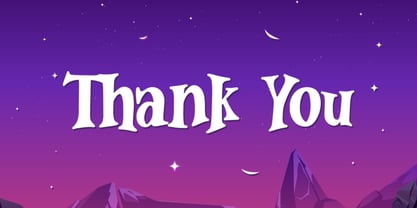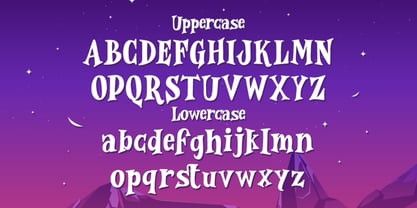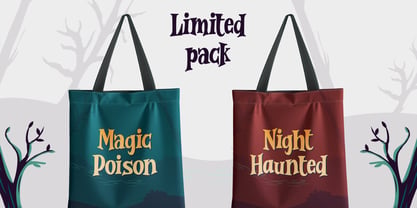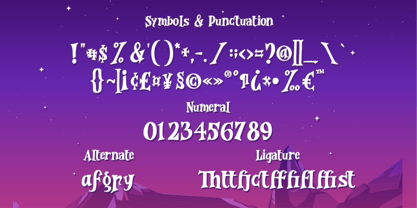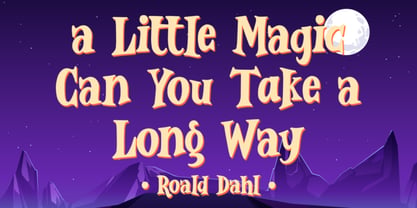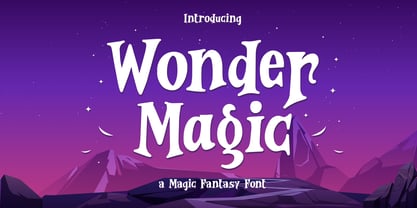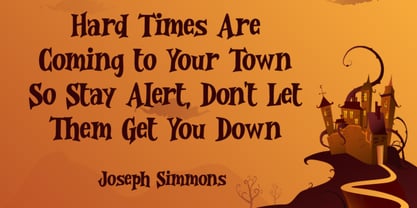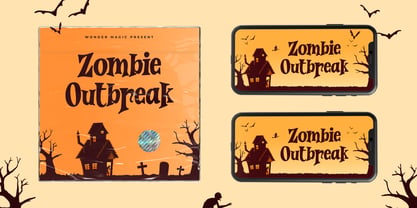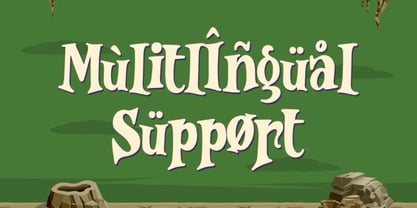
Wonder Magic
by Typefactory
The Wonder Magic Font Family was designed by Hilmius Akbar and published by Typefactory. Wonder Magic contains 1 styles. More about this family
Wonder Magic is a fantasy-inspired display typeface featuring playful serif forms and decorative curves that create a magical and whimsical impression. The unique letter shapes and subtle irregularities give this font a distinctive personality while maintaining good readability for display use. Designed to evoke a sense of imagination and storytelling, this typeface works well for creative projects that require a fantasy or magical atmosphere. Its balanced proportions and expressive details make it suitable for both titles and short text compositions. Wonder Magic is ideal for game titles, children’s books, fantasy posters, branding, packaging, and creative visual designs that aim to deliver a fun and imaginative tone.
Designers: Hilmius Akbar
Current Foundry: Typefactory